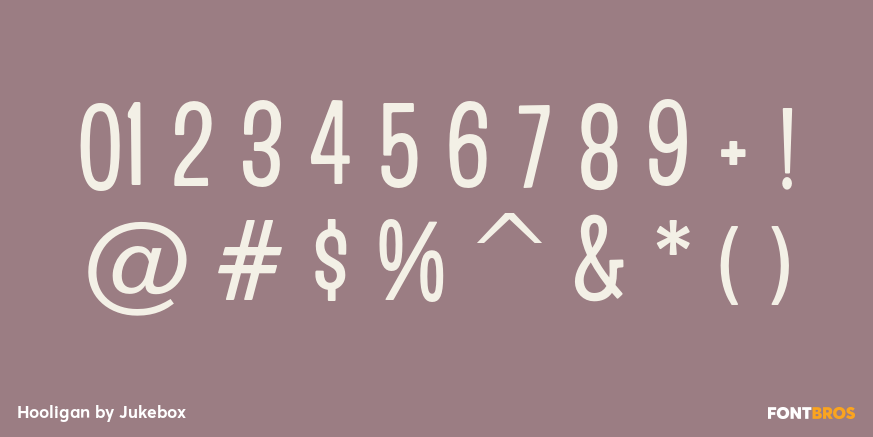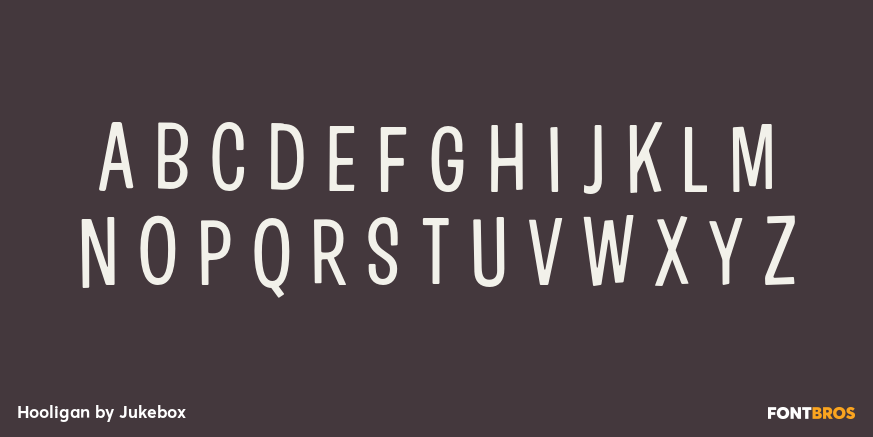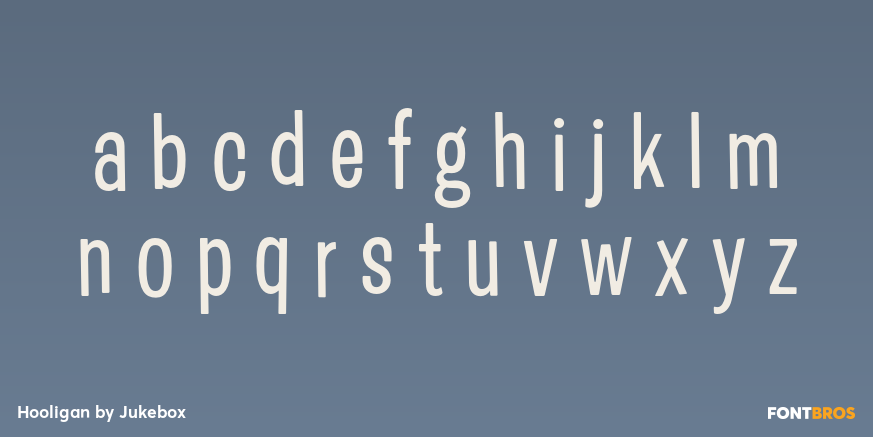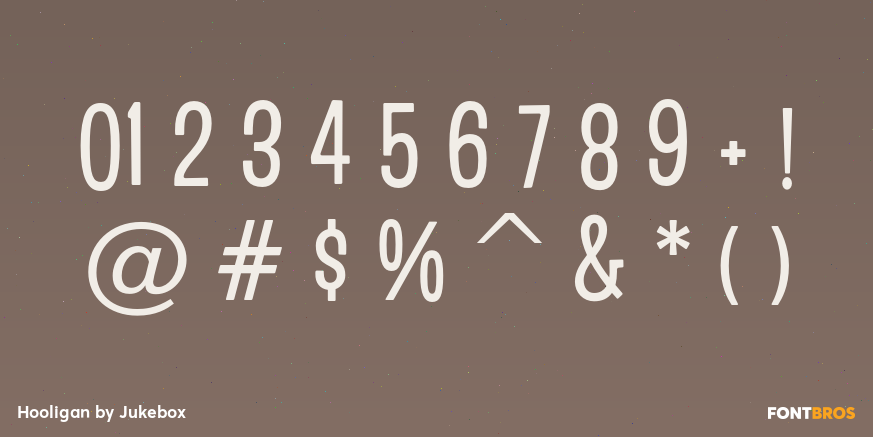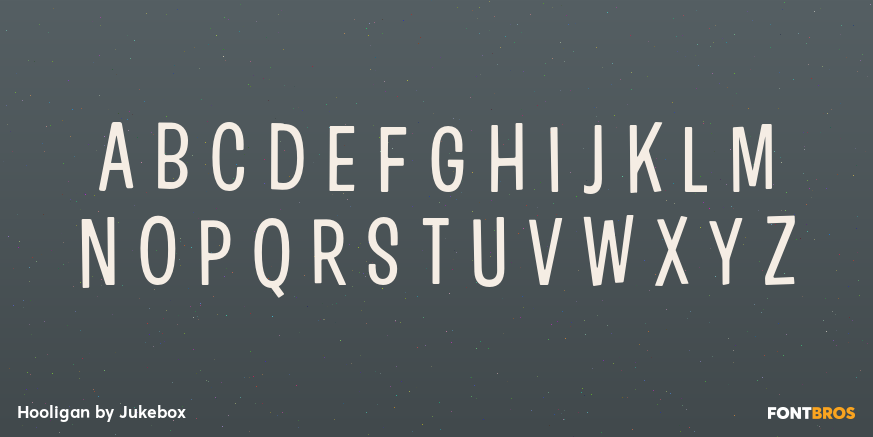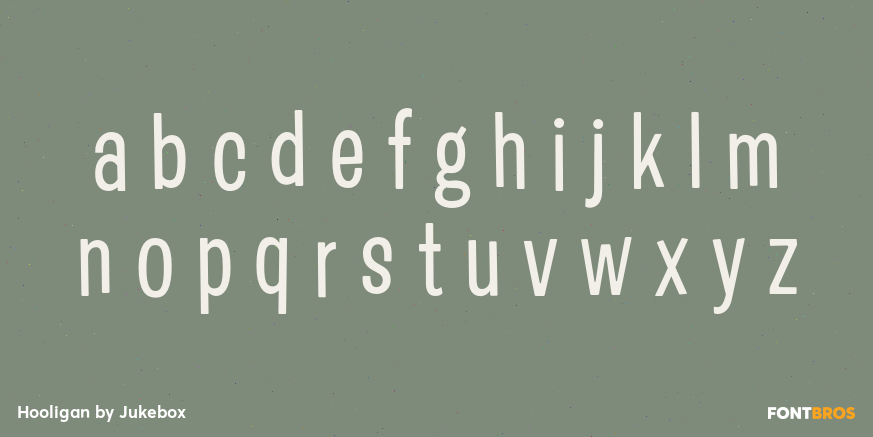
Hooligan
Font Family by Jukebox
Hooligan is a fun and lighthearted retro font straight out of the atomic age! The family consists of Hooligan Regular and Italic. Bursting with 1950s and 1960s charm, Hooligan will lend your design project a touch of that optimistic nostalgia of yesteryear.